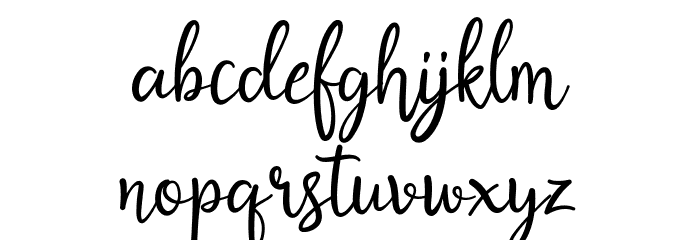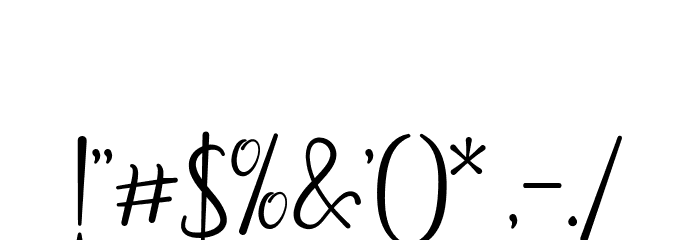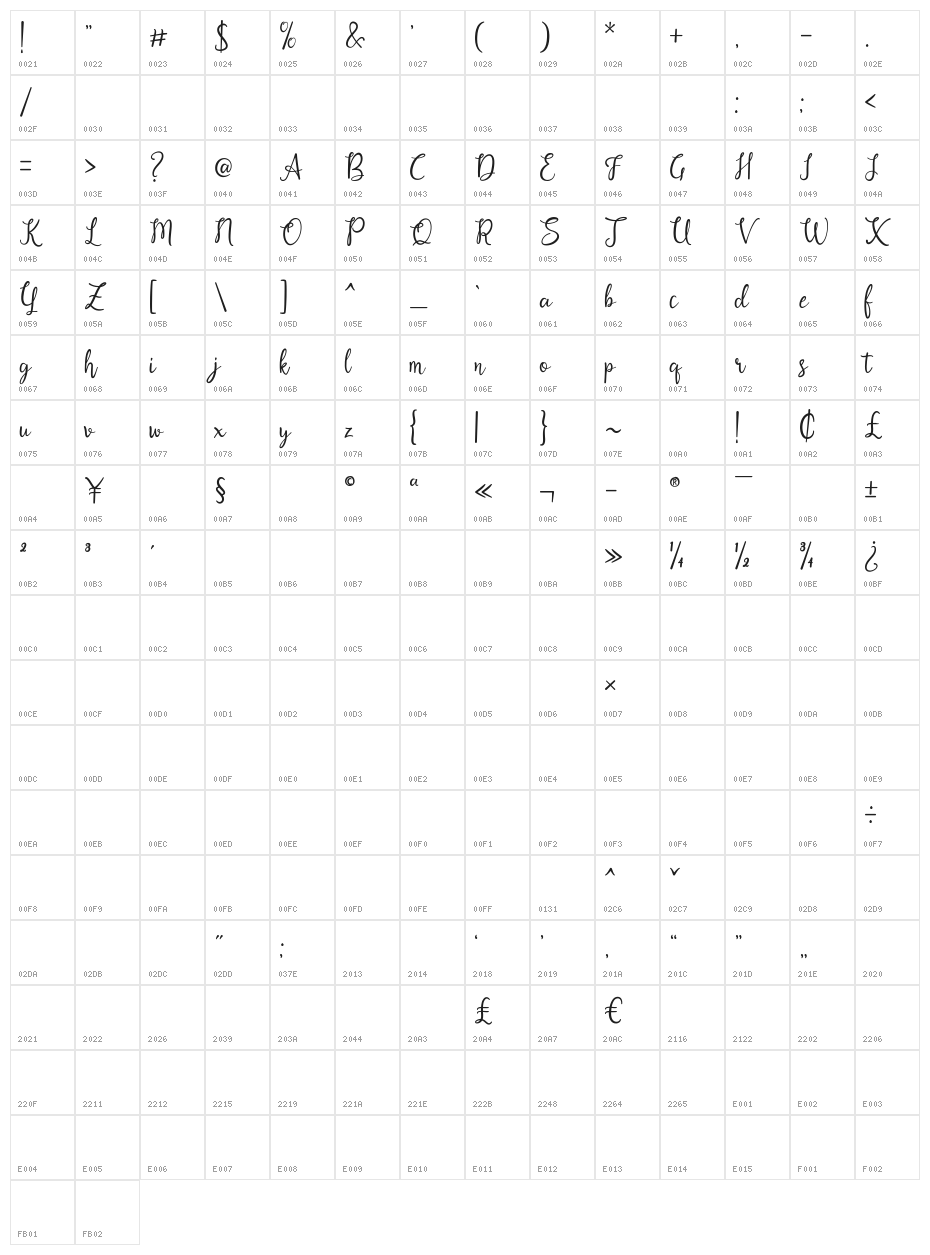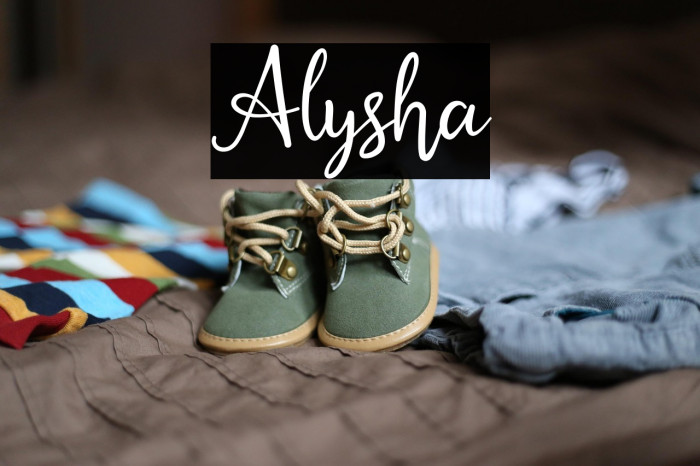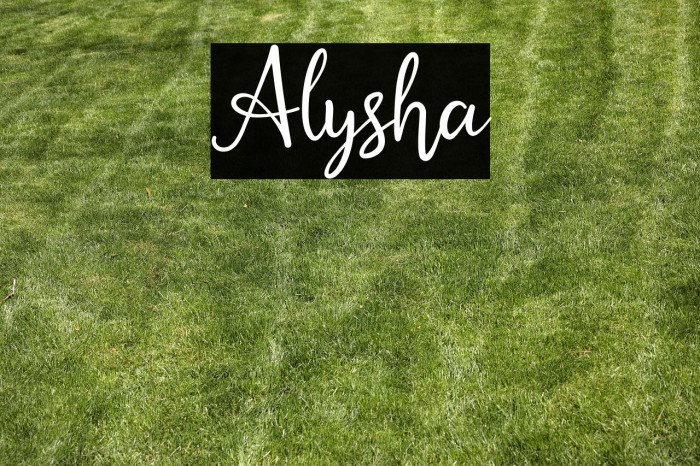
Alysha Font
This font features a playful and elegant script style, characterized by its flowing and connected letterforms. The uppercase letters exhibit a graceful loop and curve, adding a touch of sophistication. The lowercase letters maintain a consistent fluidity, enhancing readability while retaining an artistic flair. The numerals and special characters are designed to complement the overall aesthetic, with smooth curves and balanced proportions. This font's unique charm makes it suitable for creative and decorative applications.
A playful and elegant script font with flowing, connected letterforms.
- Proposed Projects: Ideal for wedding invitations, greeting cards, branding, and logo design.
- Use Case: Logos, Invitations, Decorative text